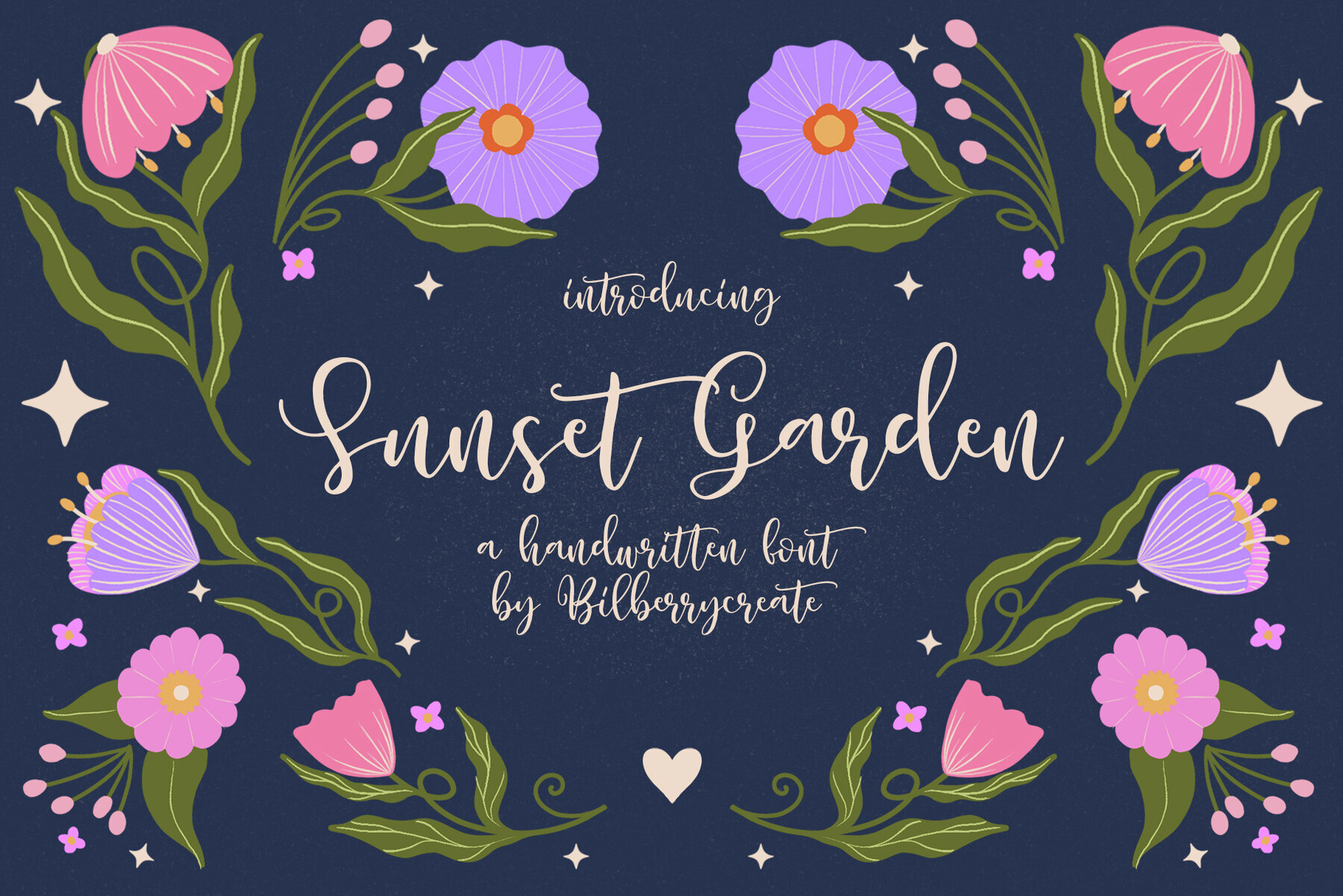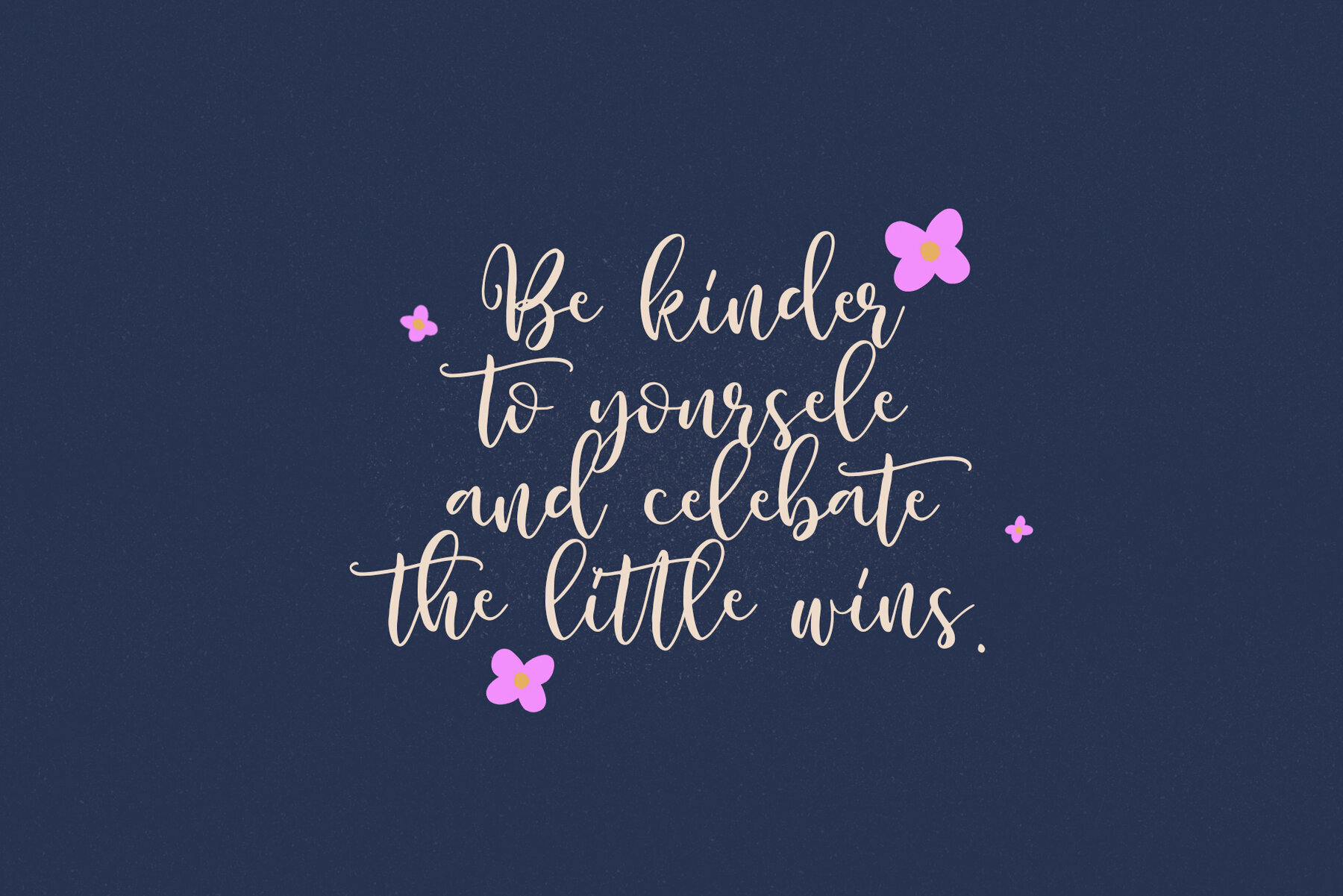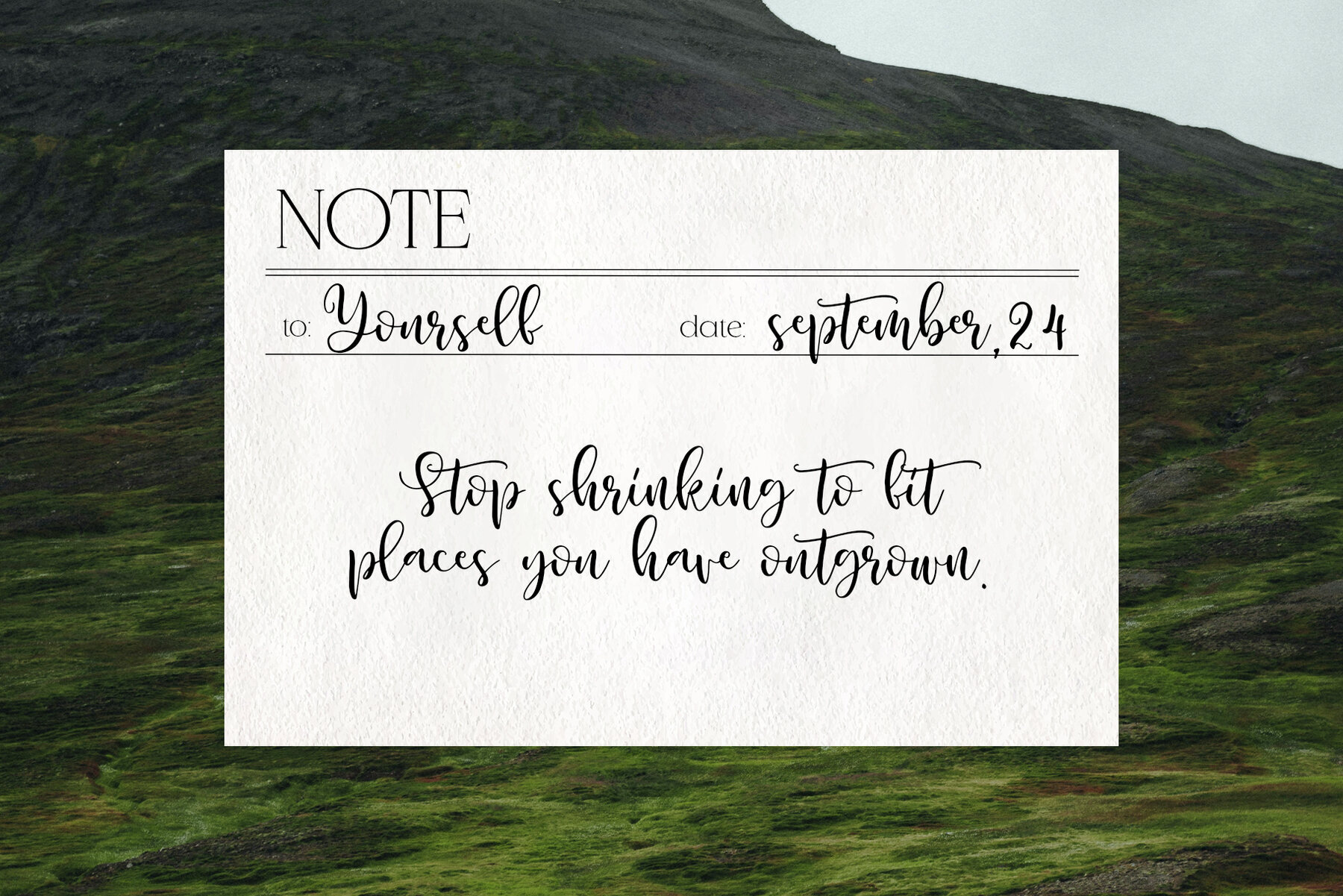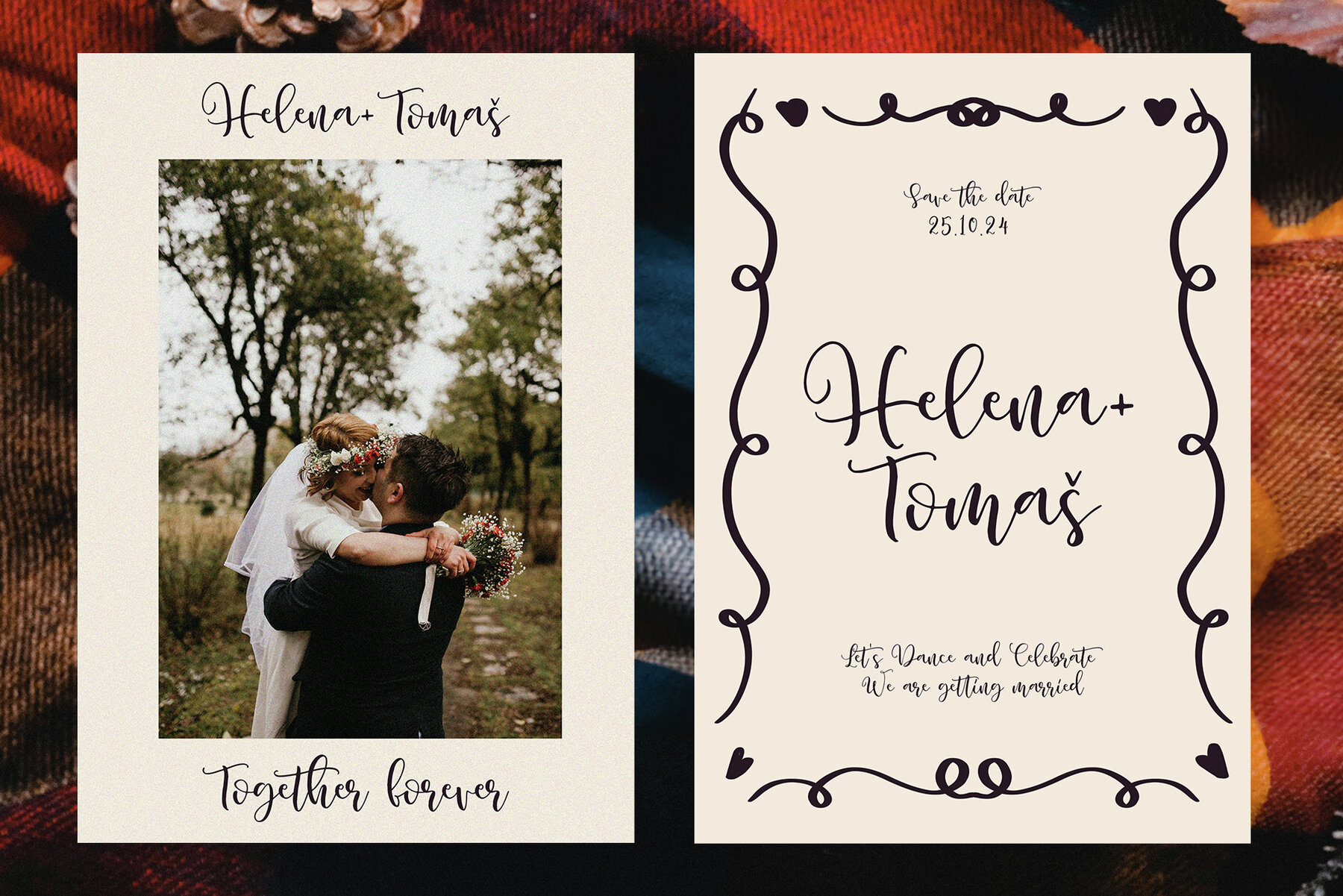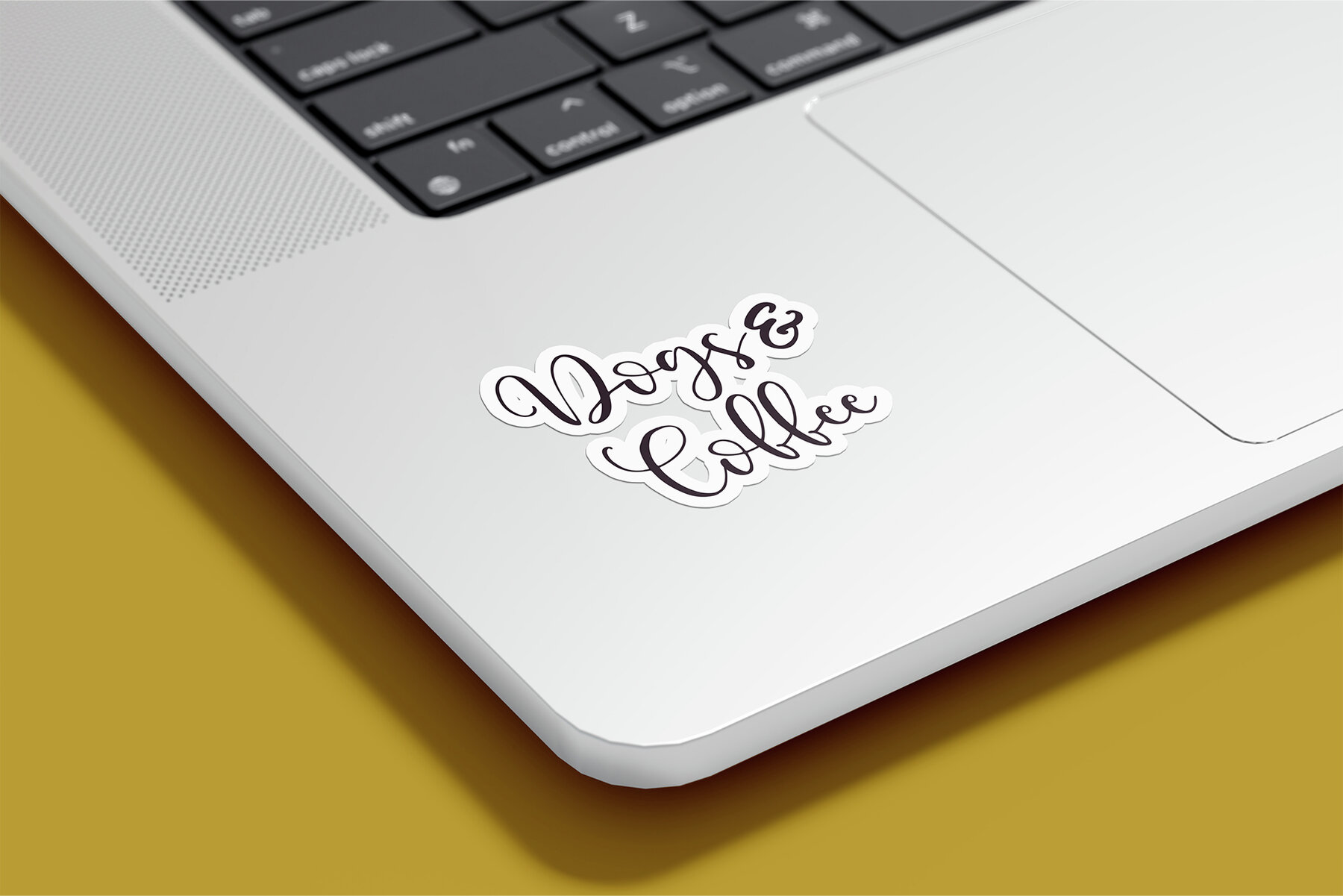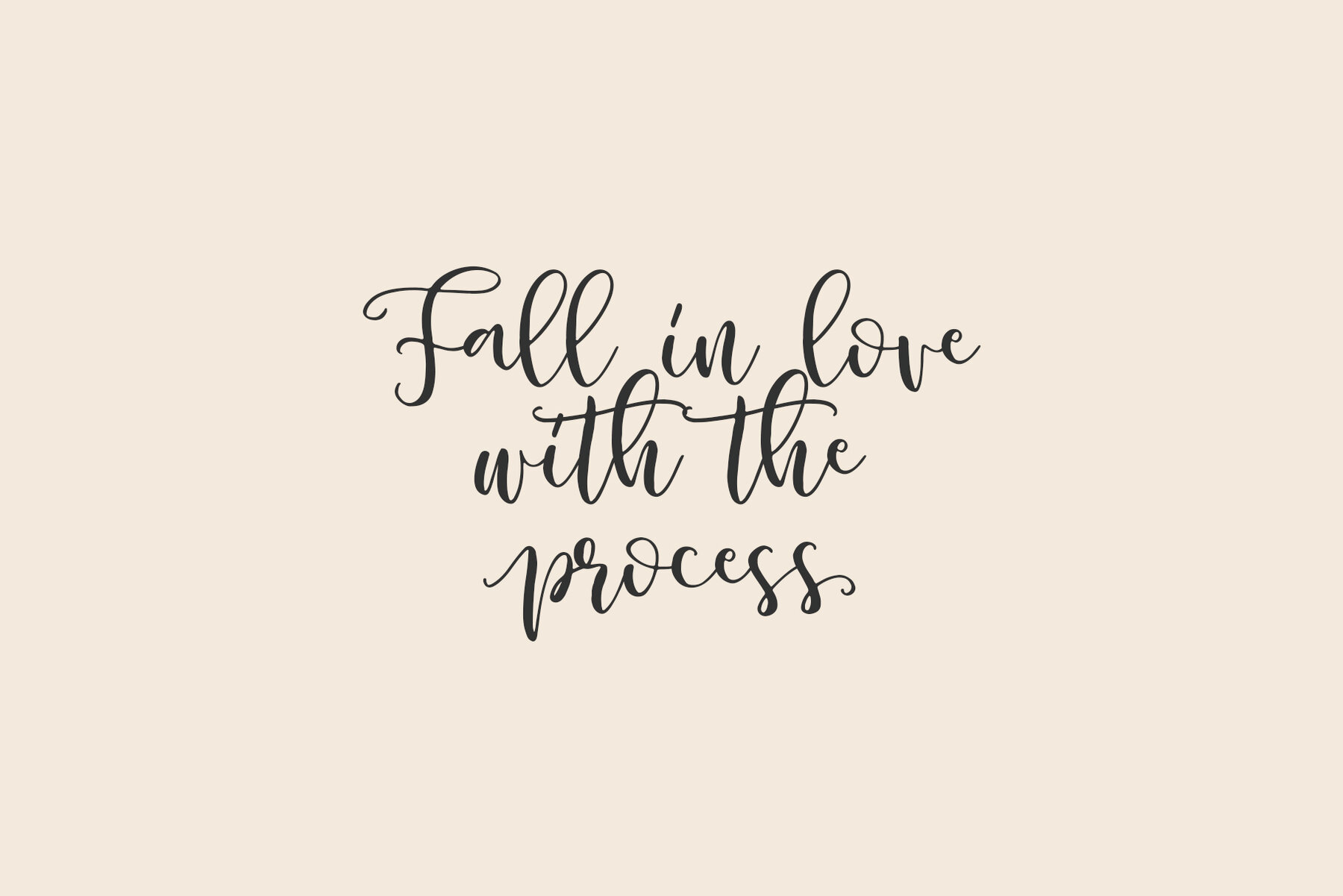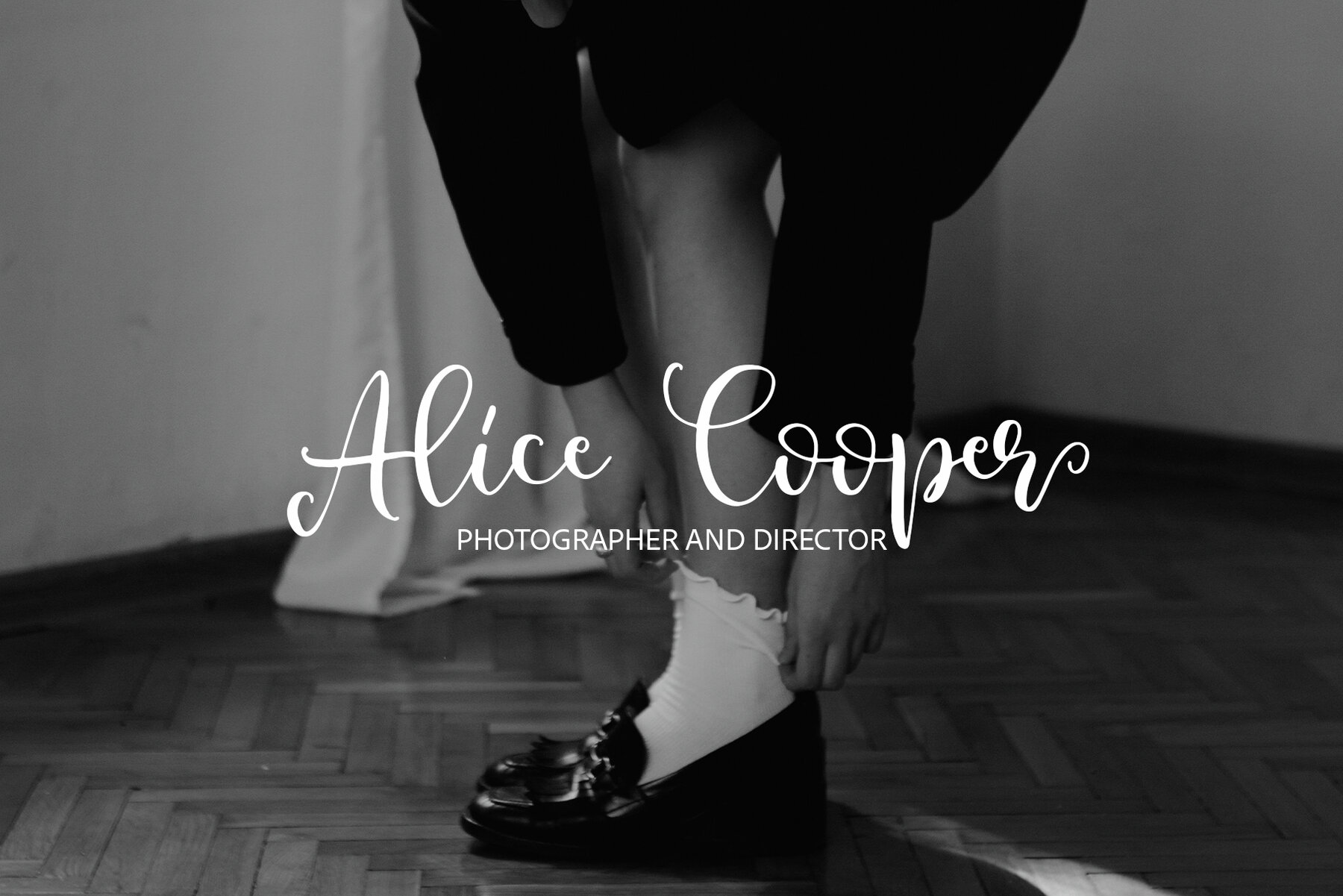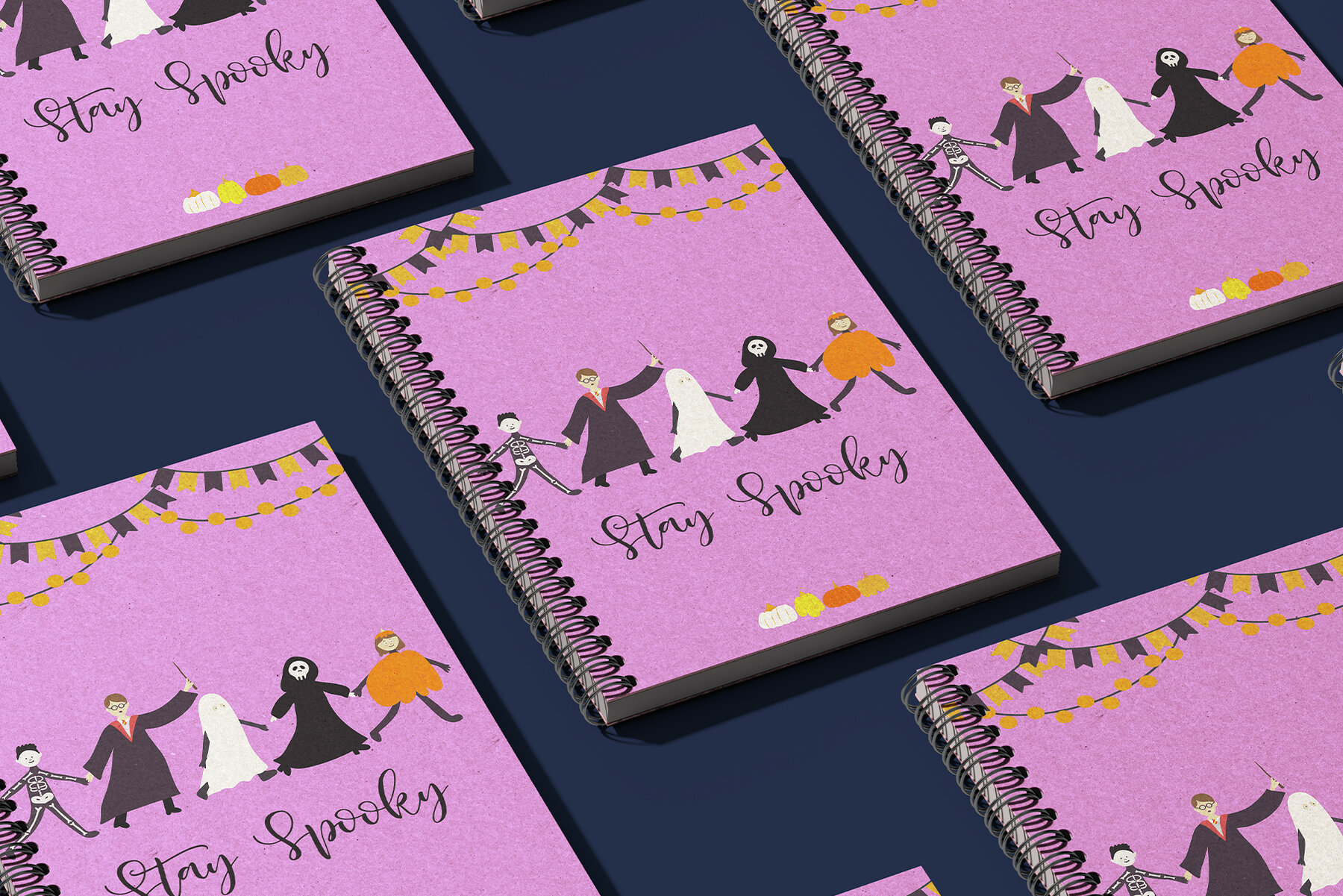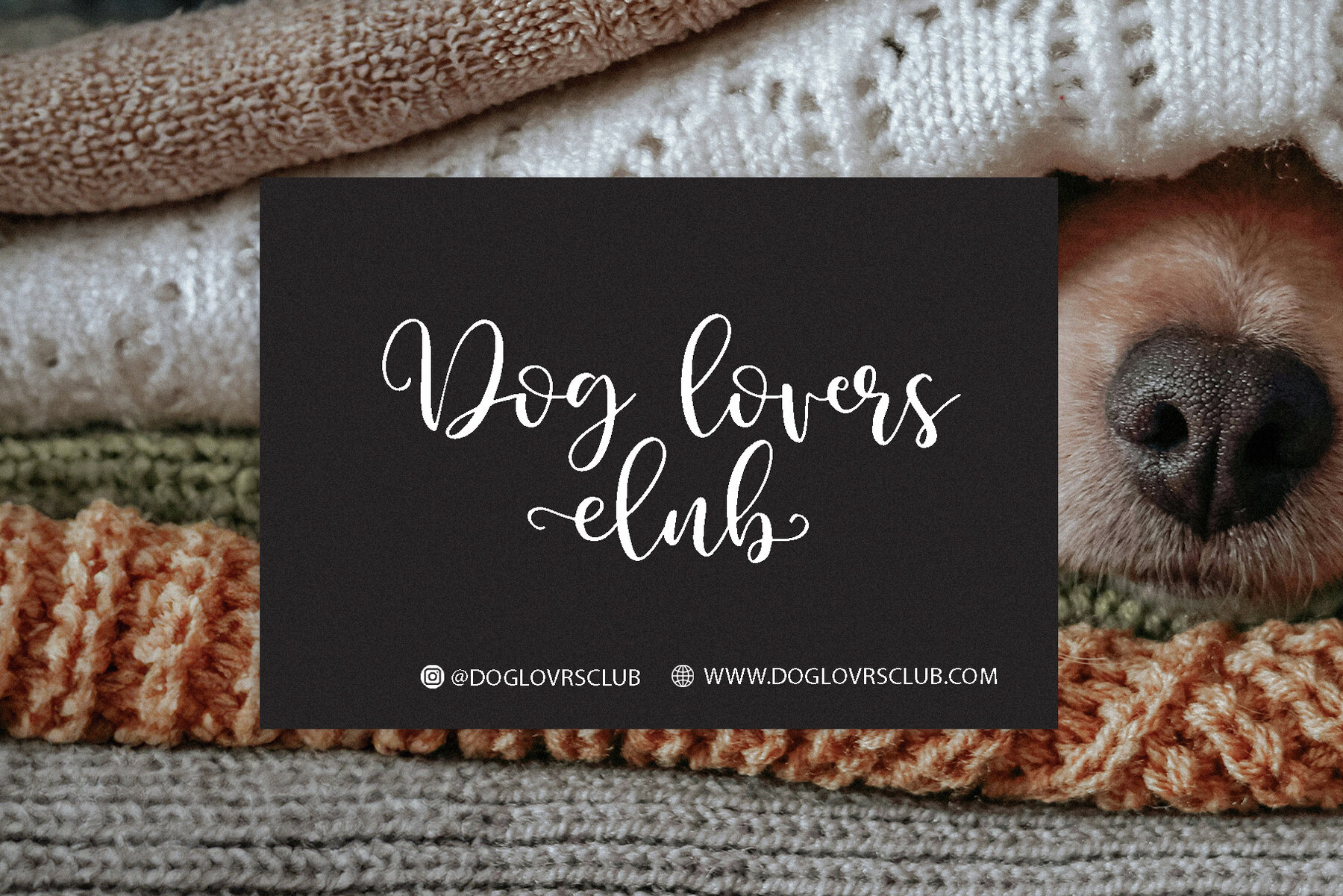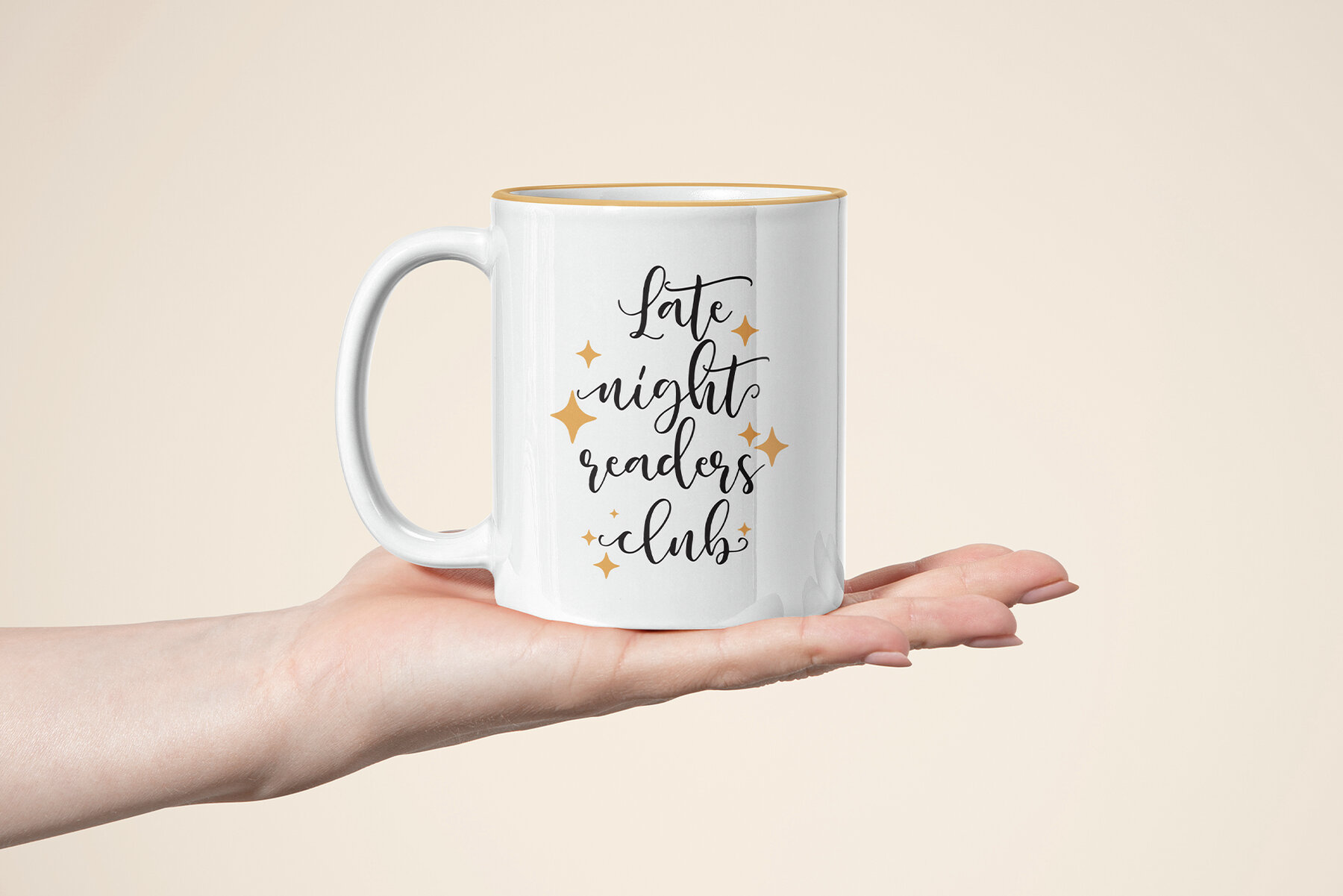
Sunset Garden Font
This elegant handwritten script font exudes a whimsical and artistic flair, perfect for creative design projects that require a personal touch. With its flowing cursive strokes and chic decorative elements, this font is ideal for invitations, signature logos, greeting cards, and other personalized stationery. Its expressive and informal style can add a unique charm to any branding or artistic endeavor.